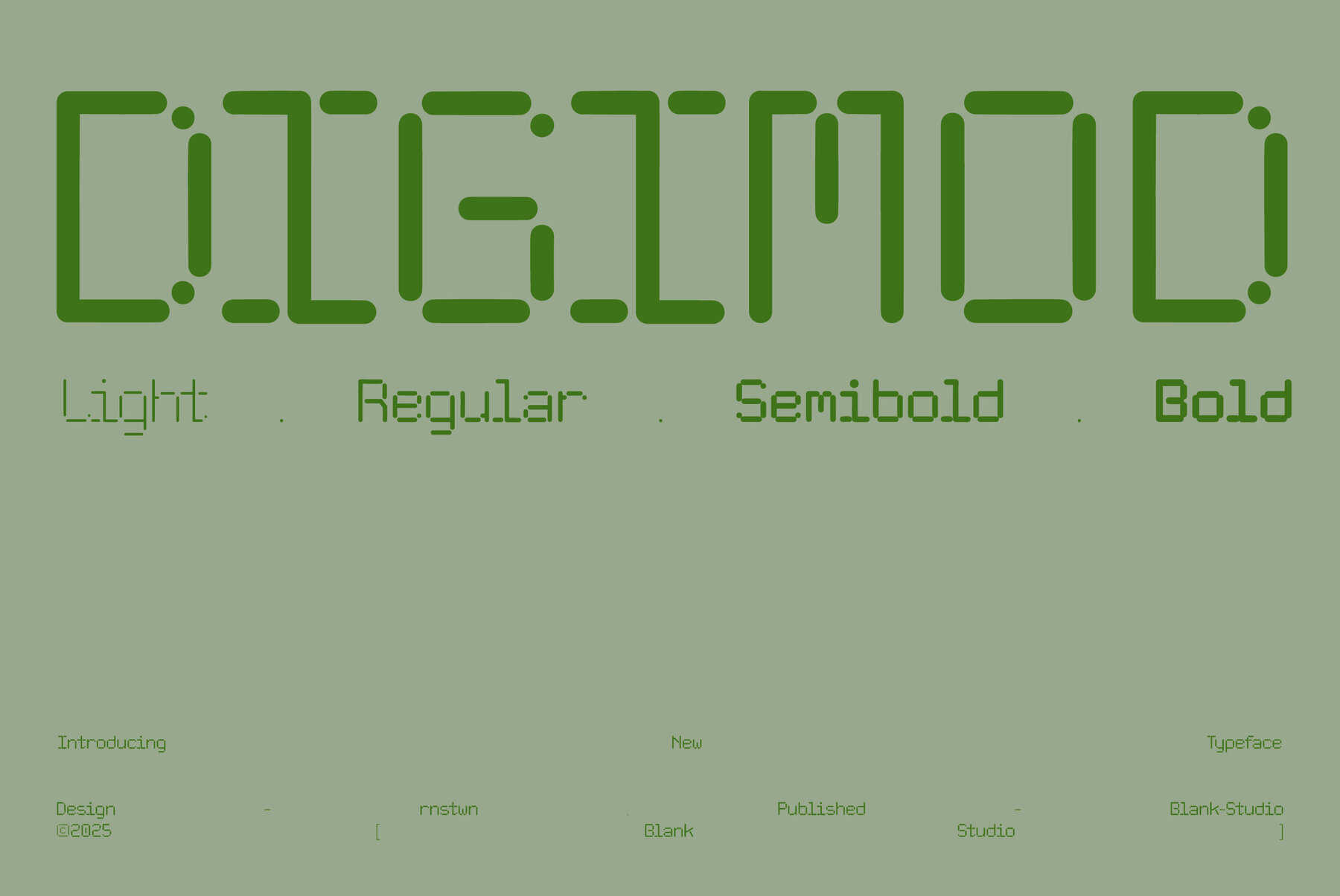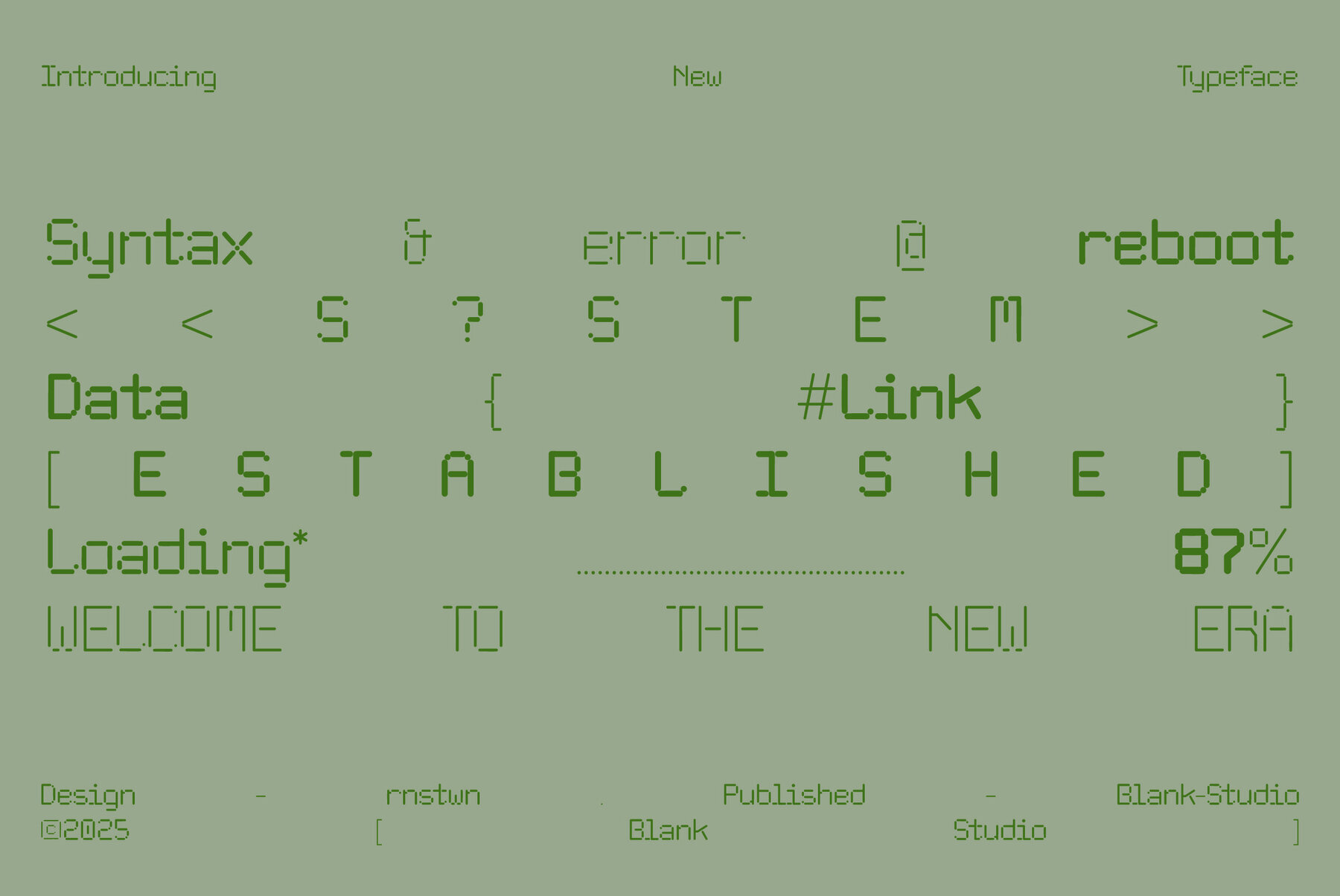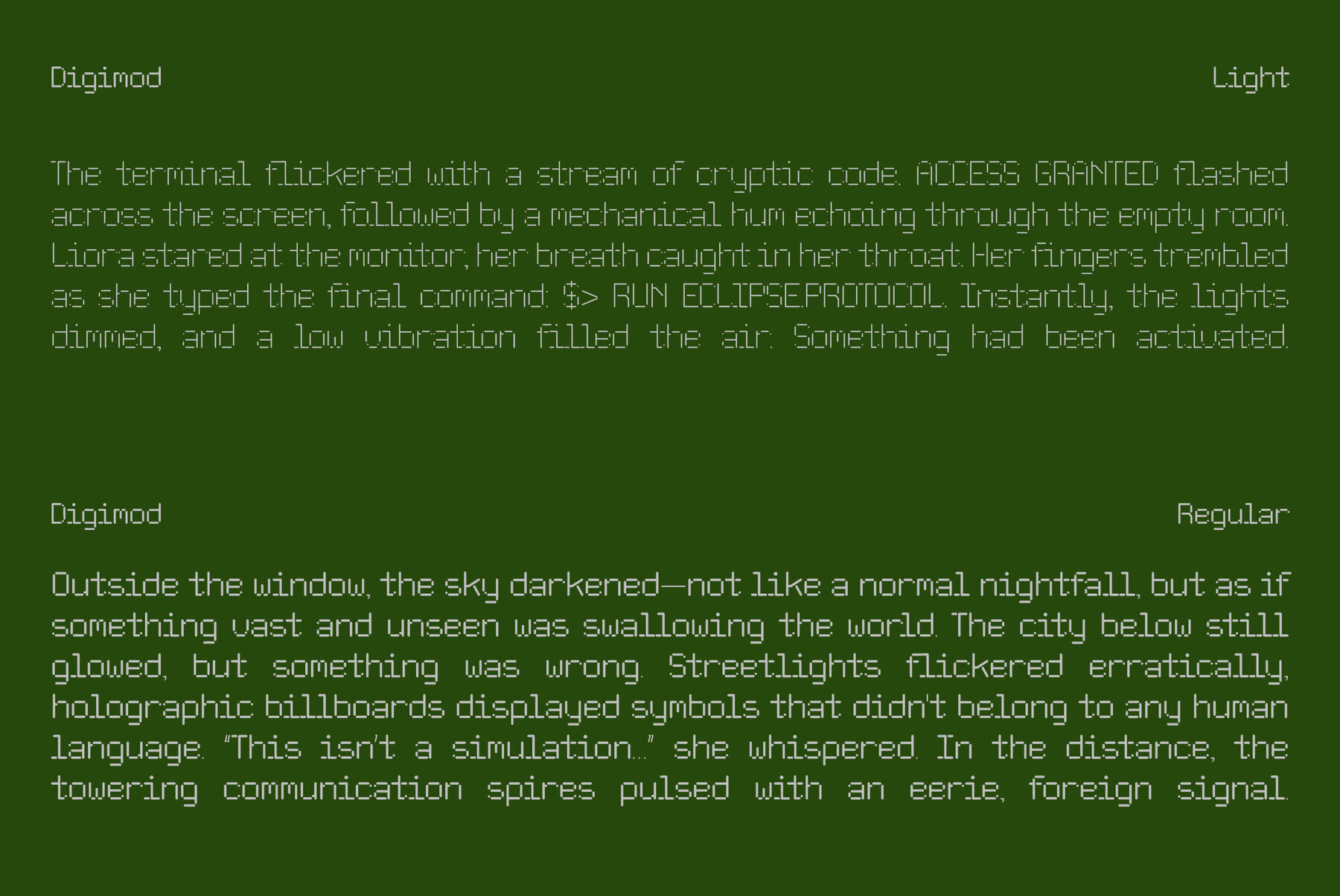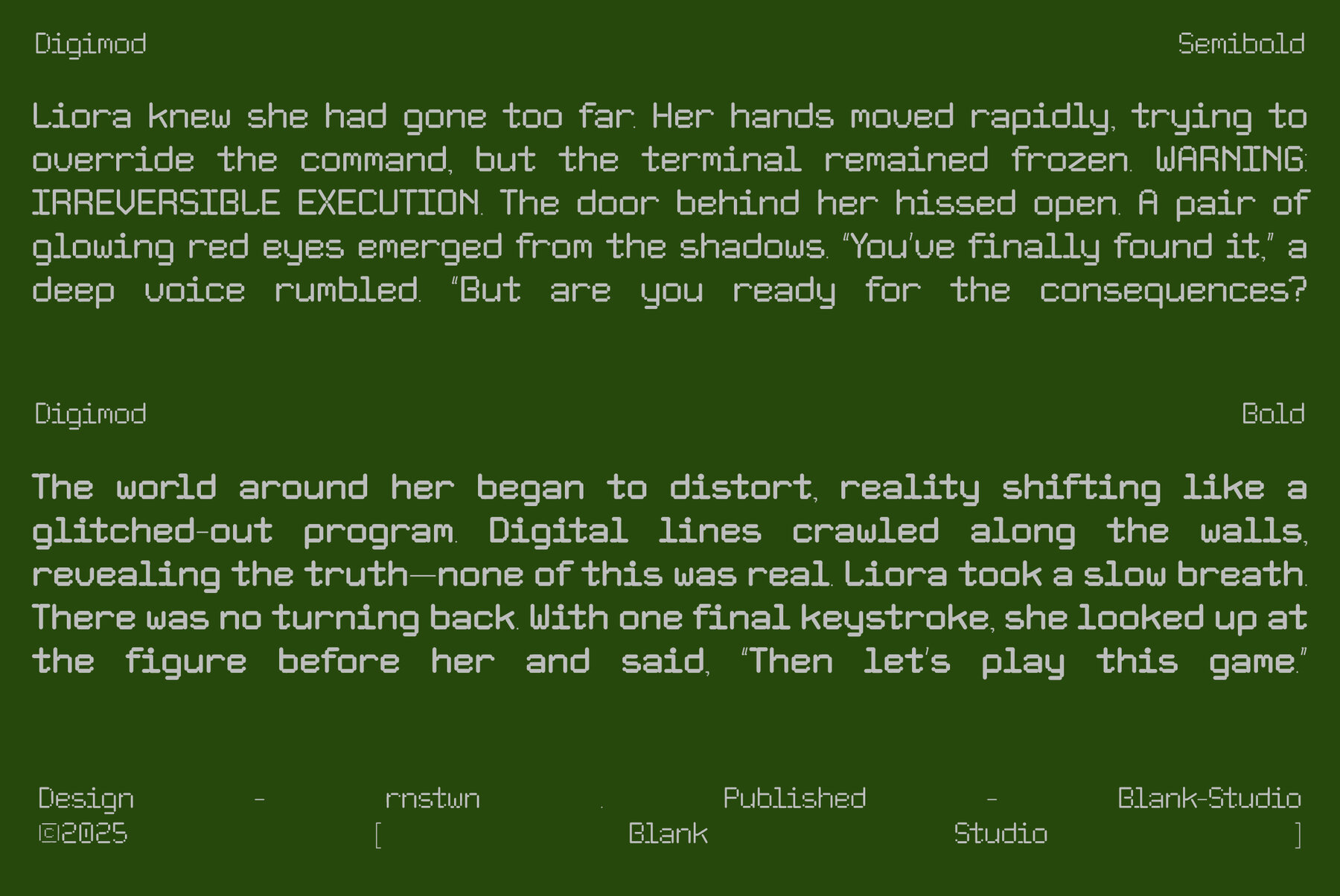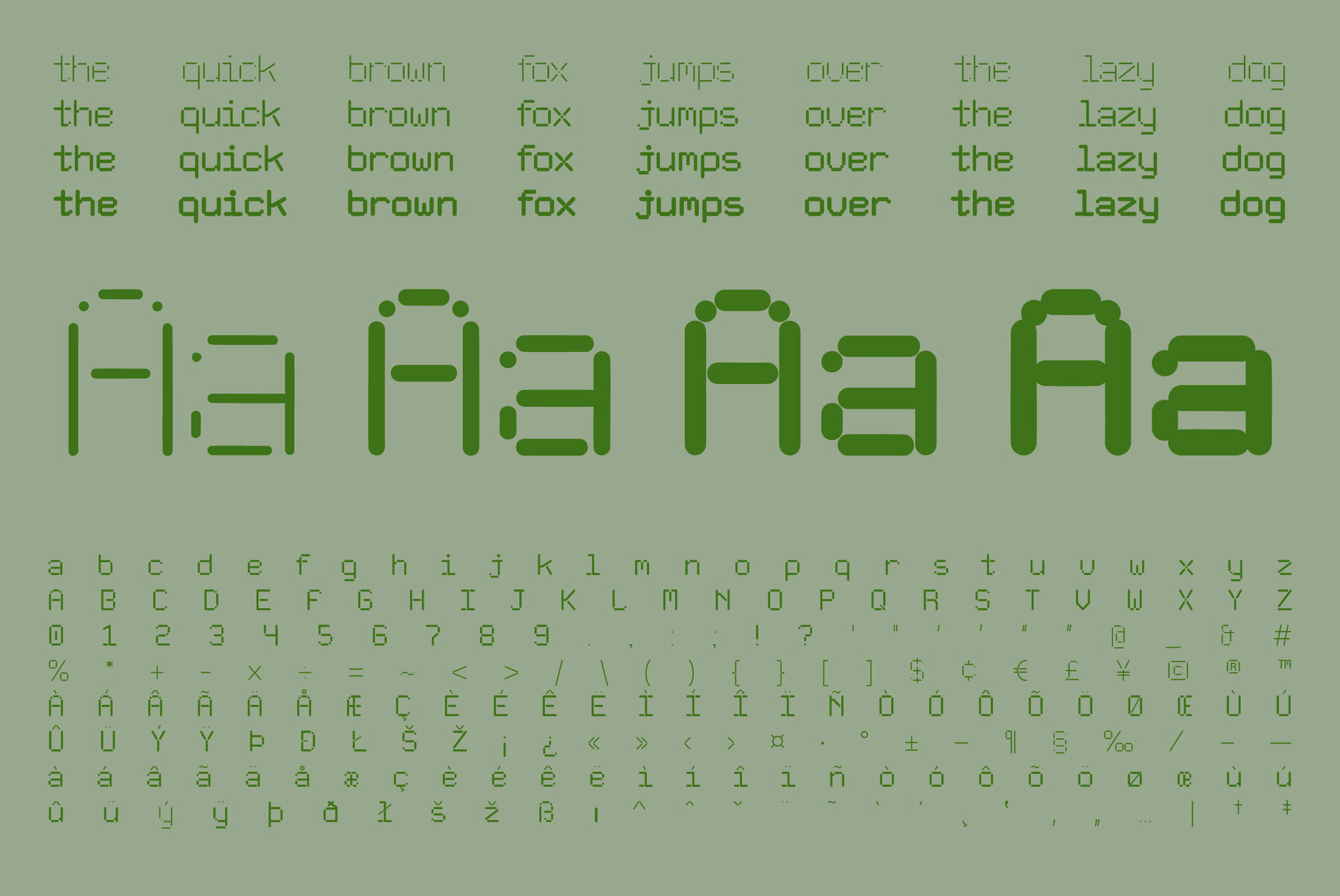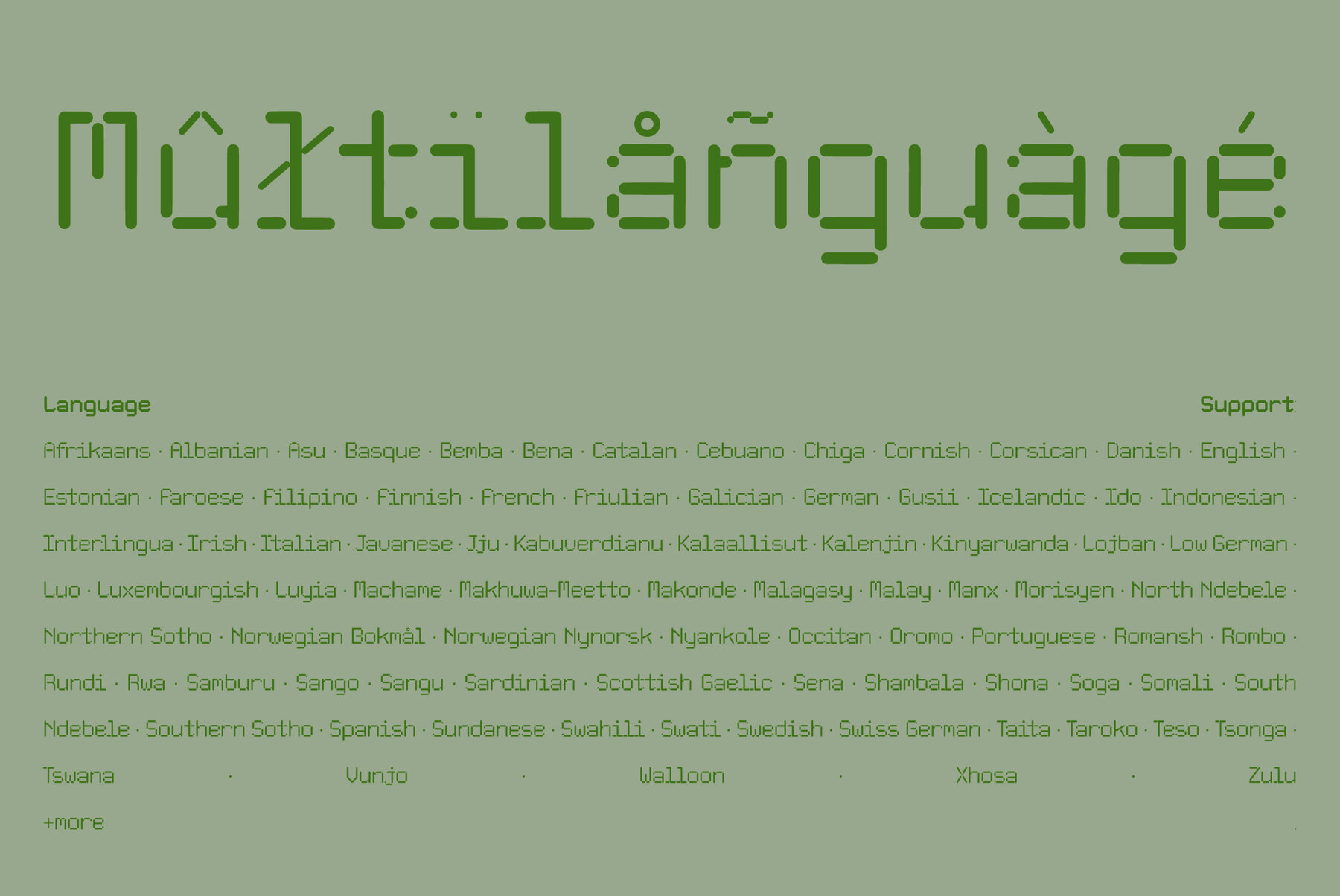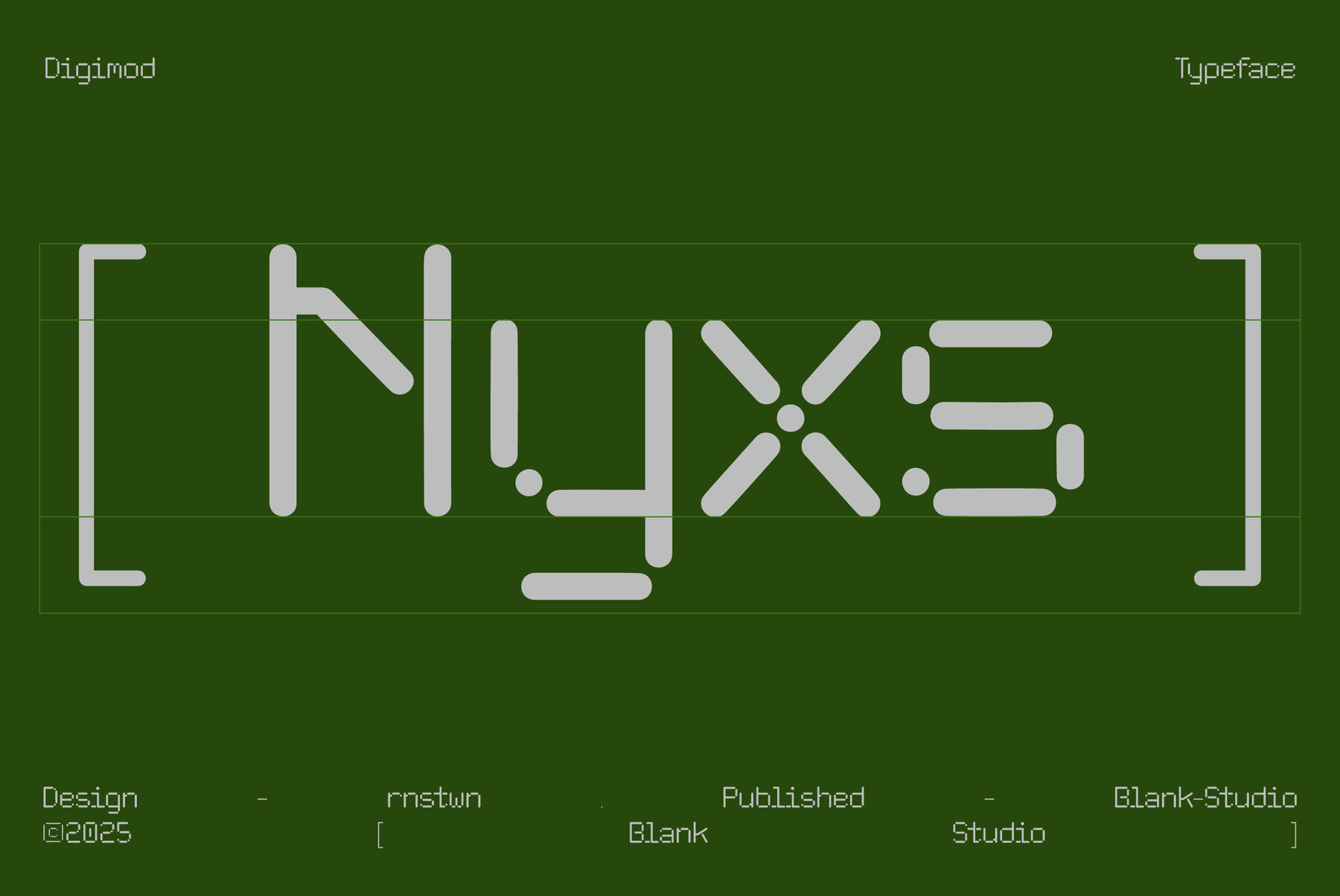
Digimod Font
Digimod is a futuristic typeface that merges modern digital aesthetics with a retro tech-inspired feel. Designed with modular, rounded strokes and segmented letterforms, this font embodies the essence of digital displays, circuit board patterns, and vintage LED screens. With its clean yet playful structure, Digimod is perfect for branding, tech-related projects, sci-fi themes, and futuristic UI designs. The combination of sharp geometric forms and rounded edges gives it a distinctive, friendly yet high-tech character. Whether you're designing for cyberpunk visuals, nostalgic digital aesthetics, or cutting-edge technology branding, Digimod offers a unique typographic solution that stands out in both retro and modern contexts.